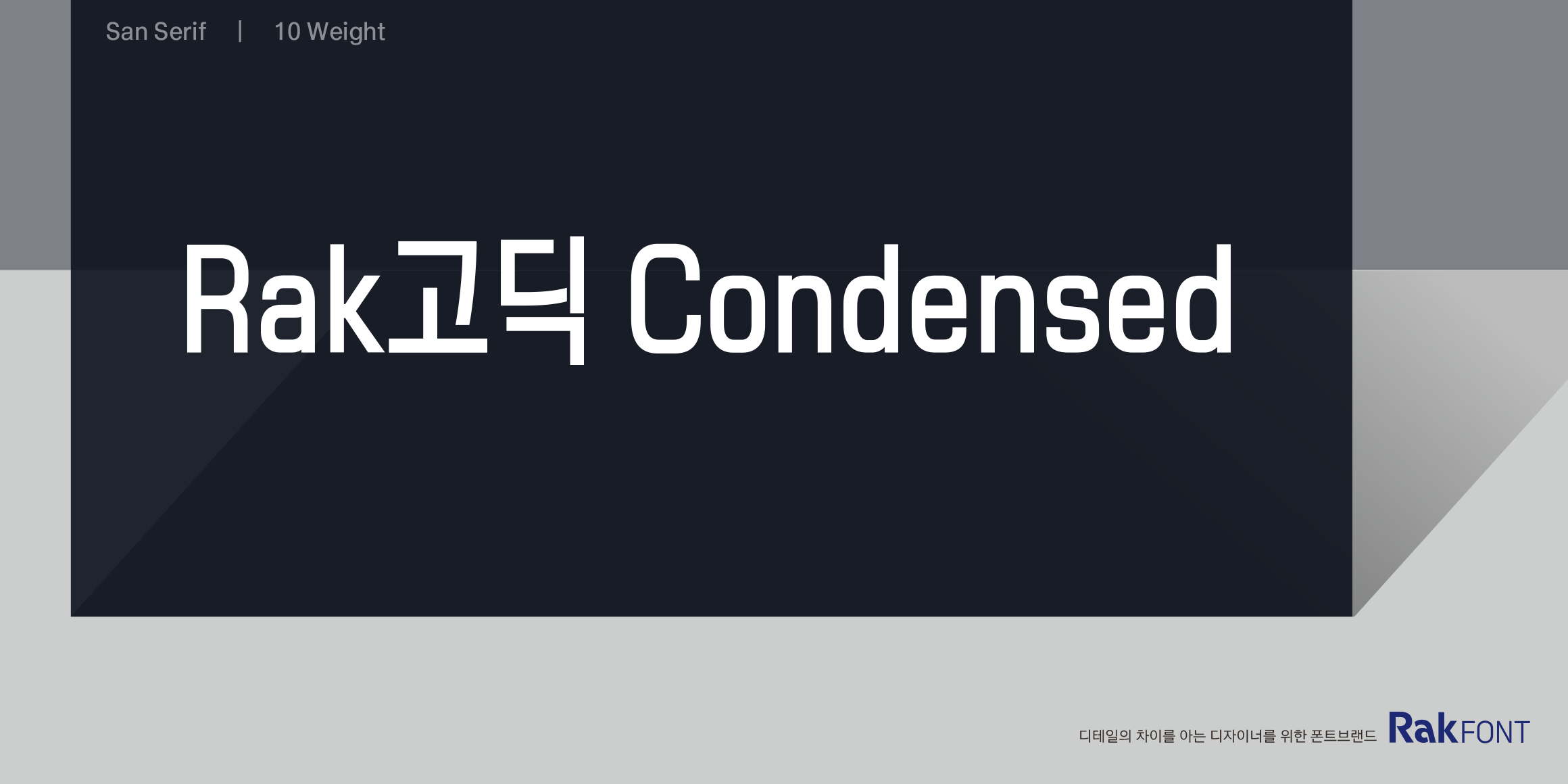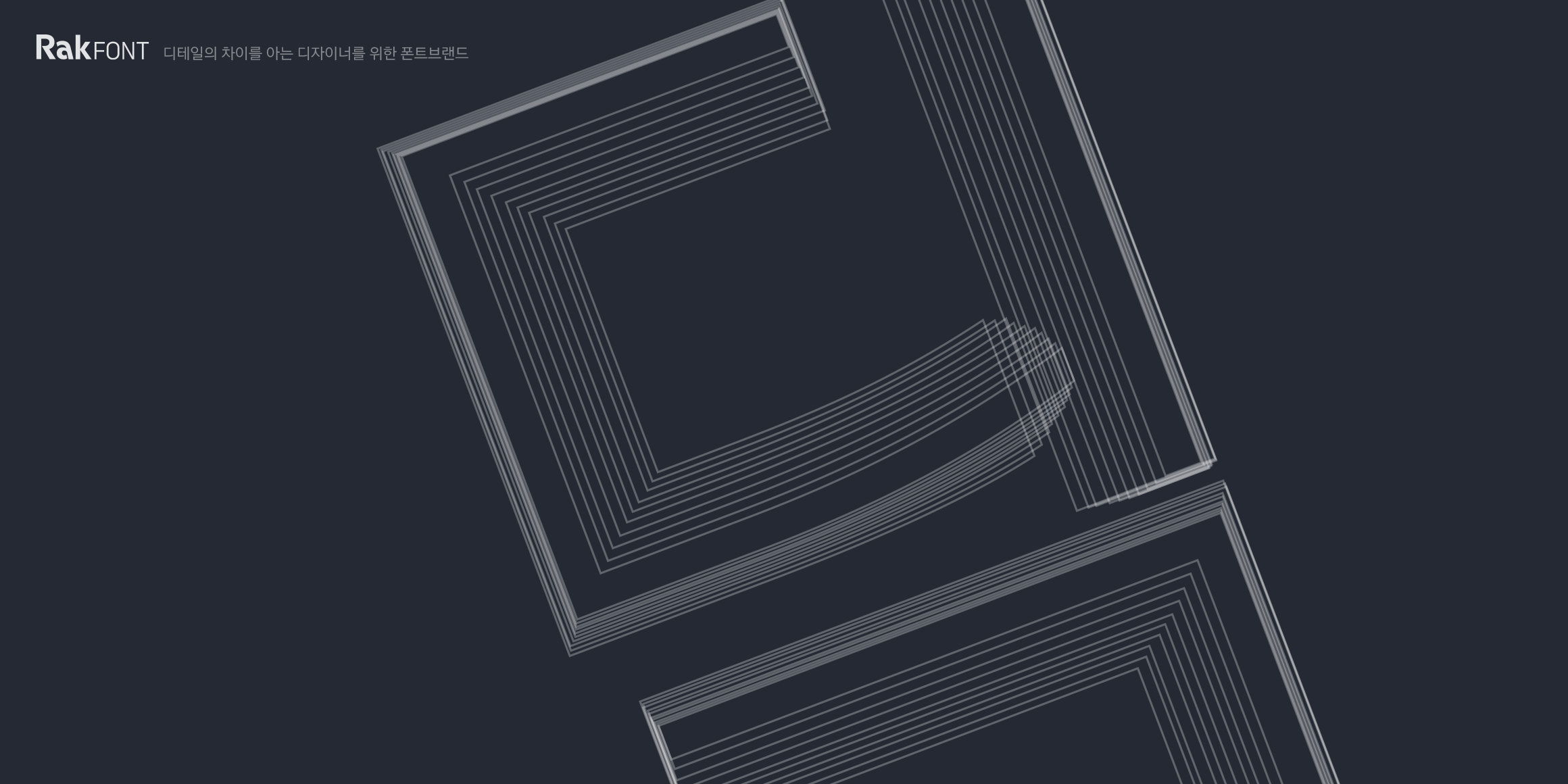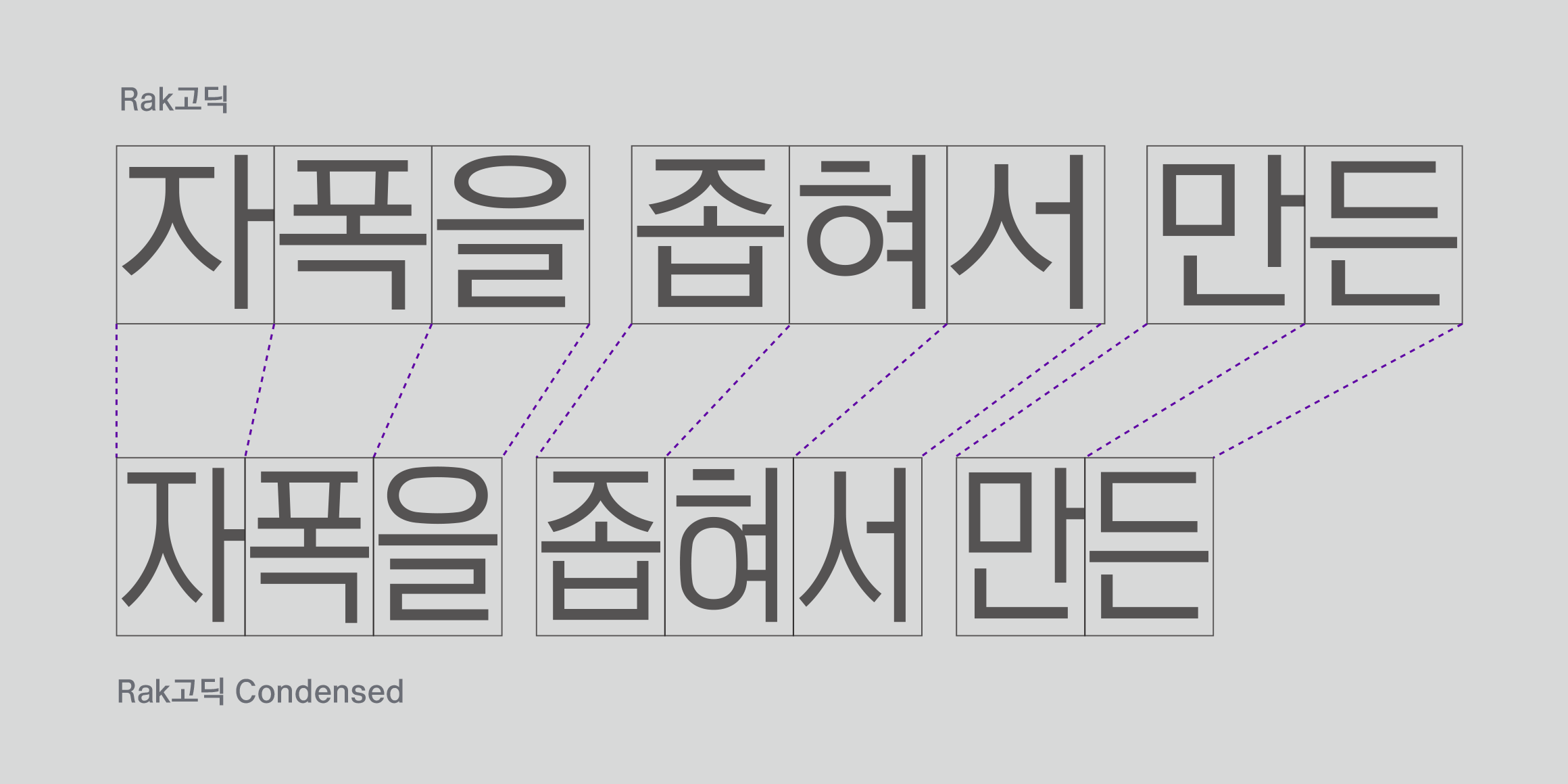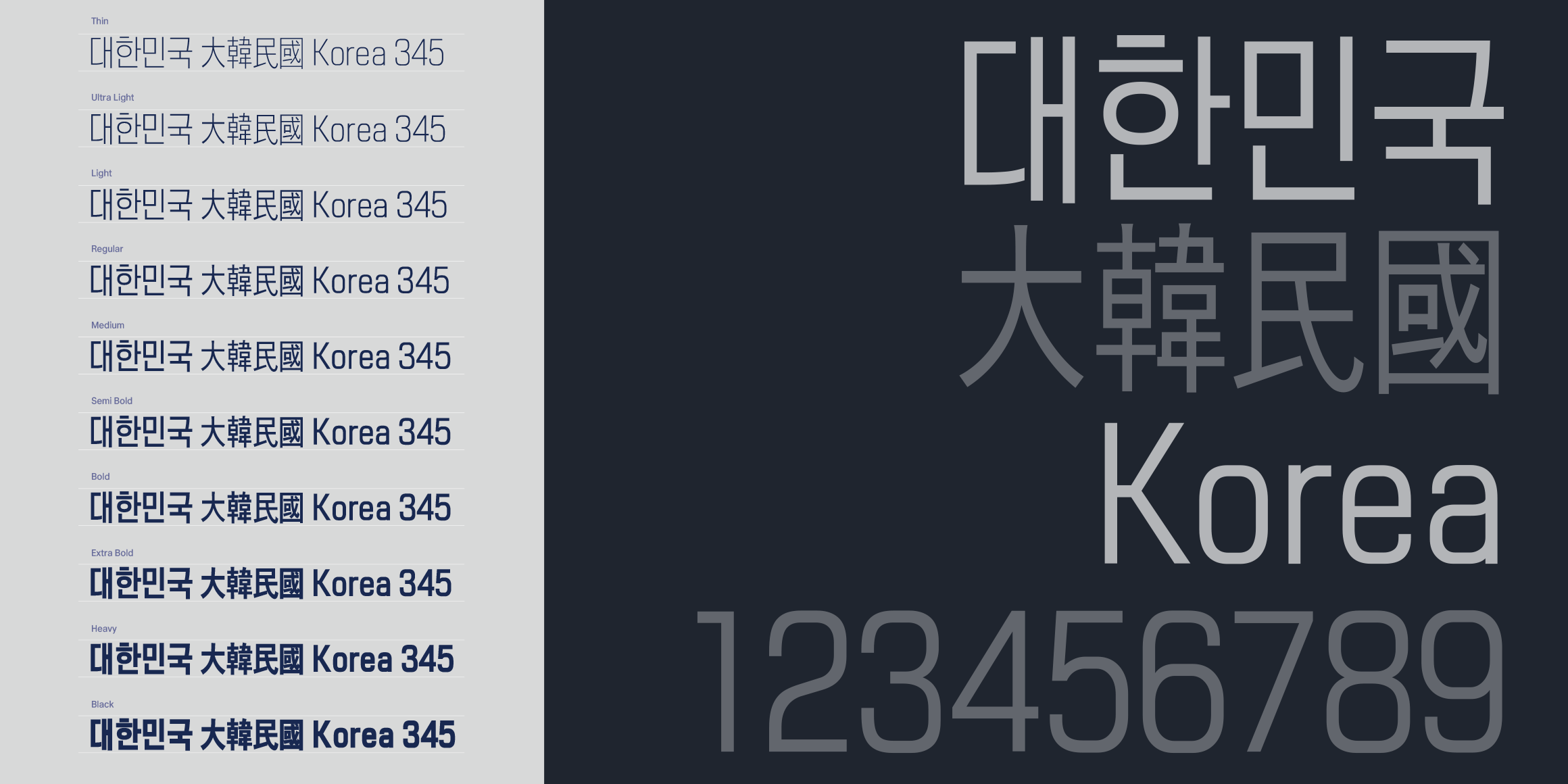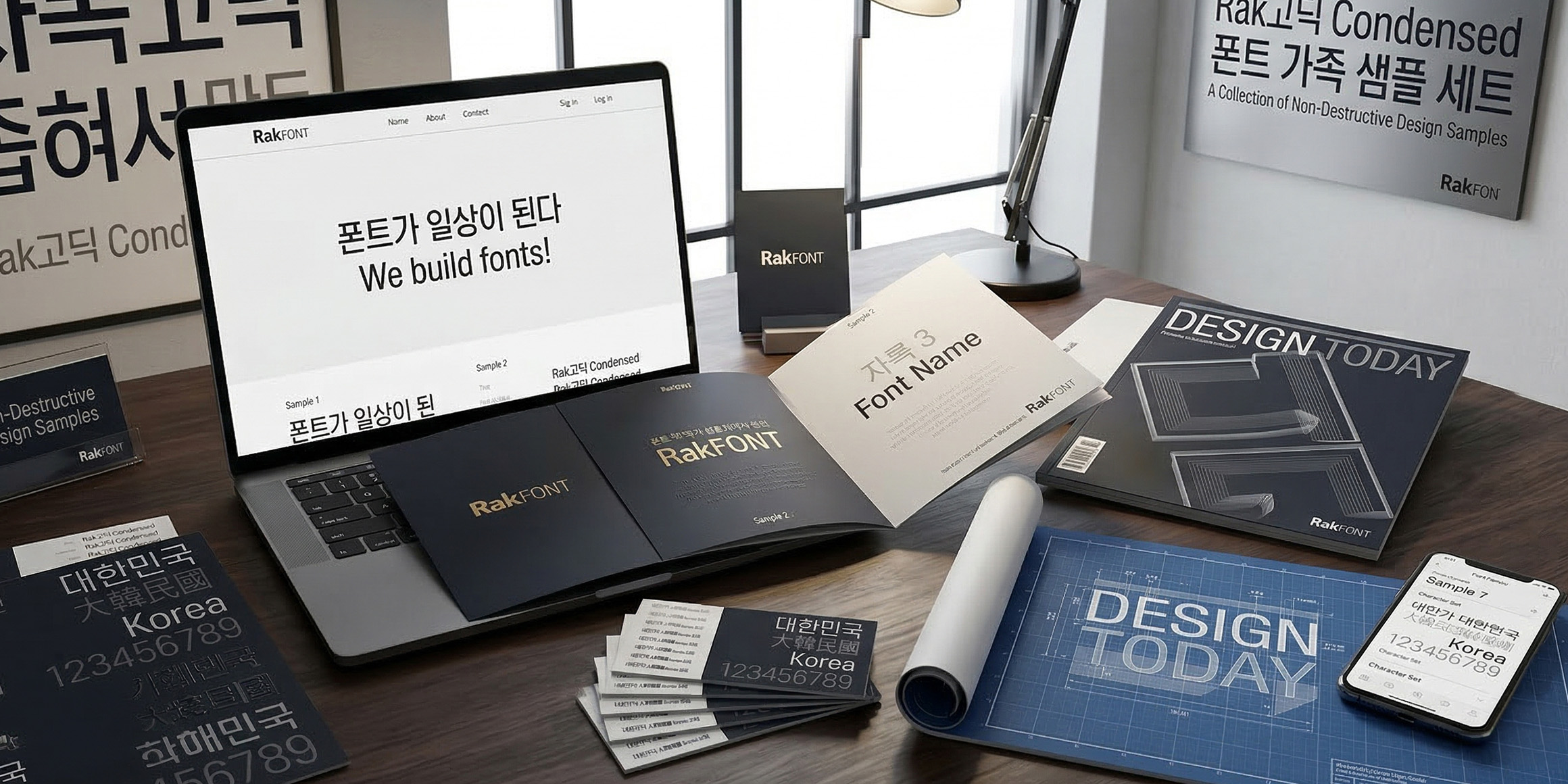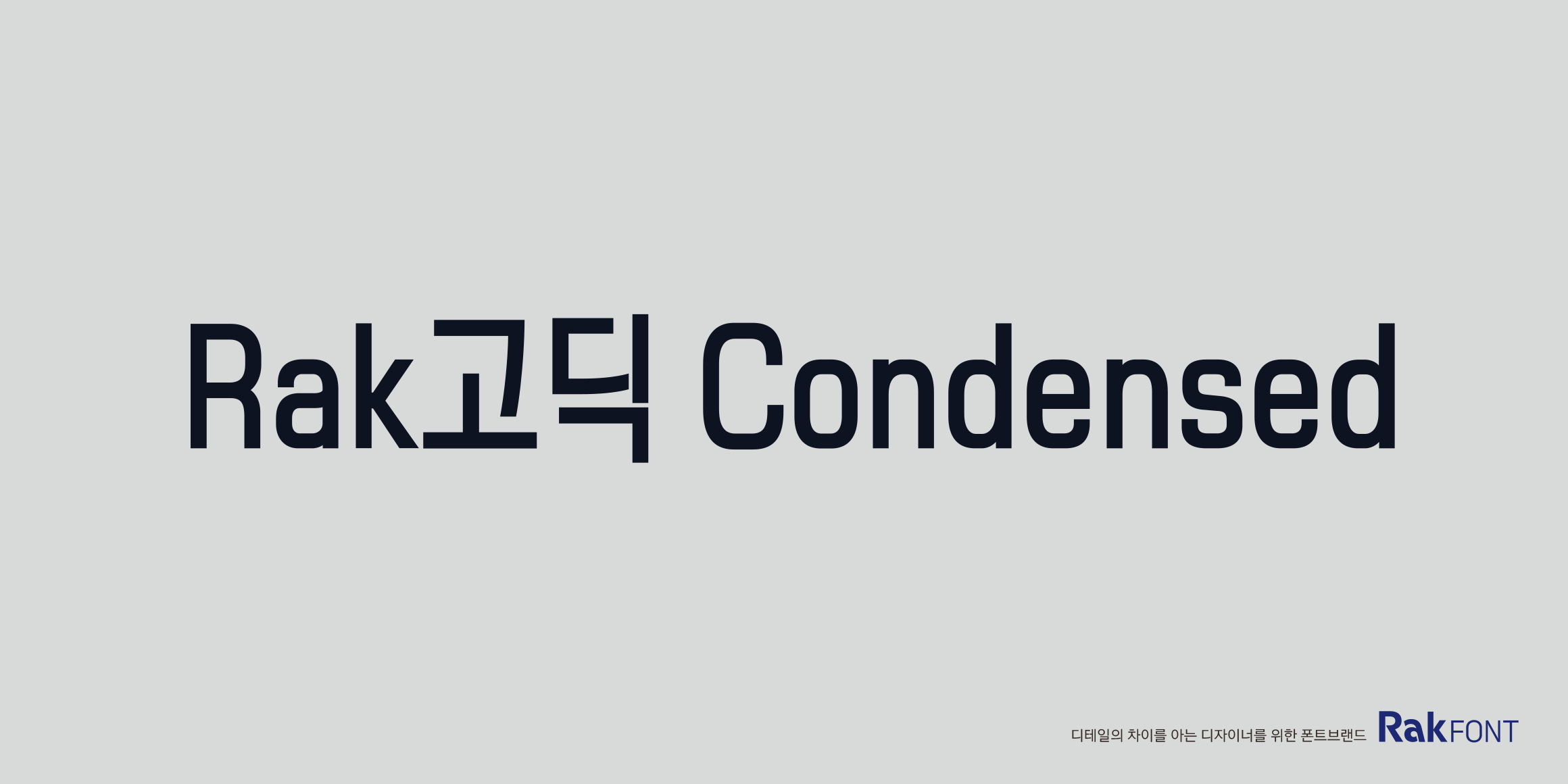
RakGo Condensed
Rakfont
'Rak Gothic Condensed' is a condensed typeface family meticulously redesigned upon the solid framework of the original Rak Gothic. It perfectly resolves the stroke distortion and loss of visual balance that occur when artificially narrowing character widths in graphic software. If you need to maintain distortion-free proportions and exceptional quality within limited space, this will be the optimal solution.